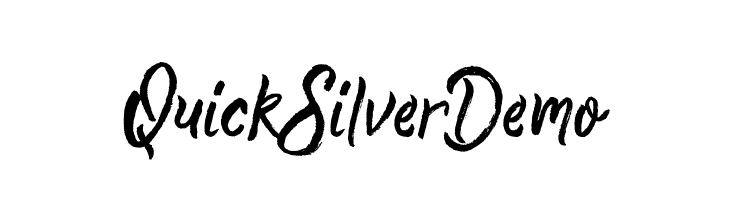
A dynamic brush script font with expressive, hand-painted strokes.
A bold, energetic handwritten font with dynamic curves and a playful style.
A bold, brush-style font with dynamic, hand-painted strokes.
A bold, brush-style script font with expressive, hand-painted strokes.